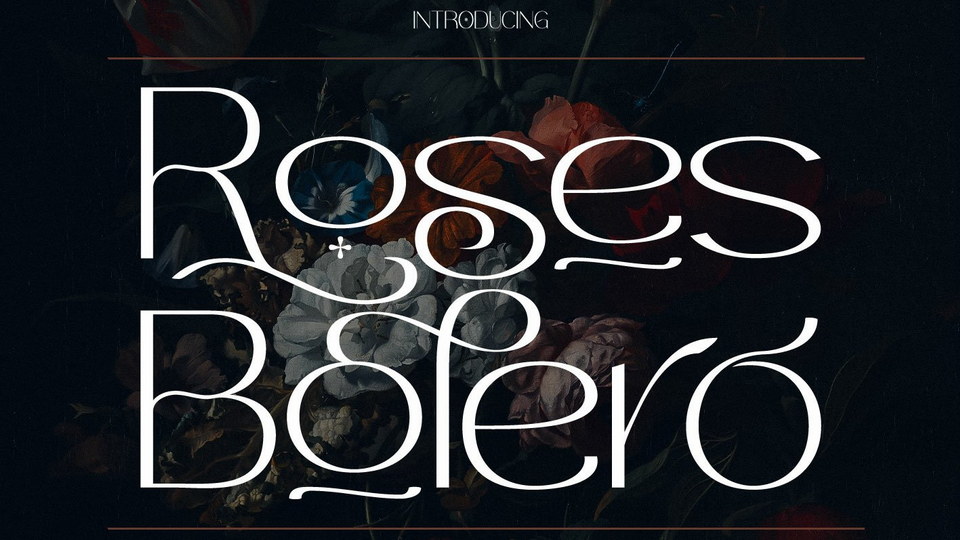
Download Roses Bolero font, an elegant sans serif typeface with a flower-shaped asterisk glyphs. With its classic style, Roses Bolero is suitable for poster design, magazines, beauty branding and fashion design concept.
Designer: Authentype